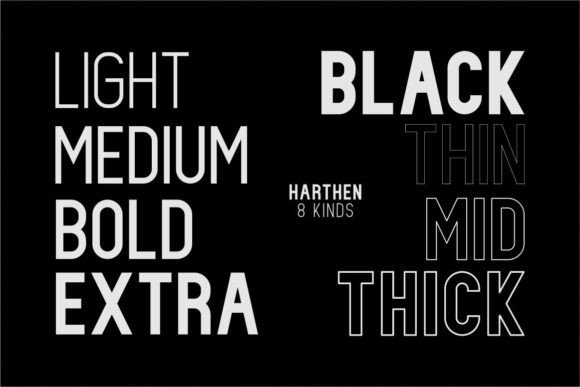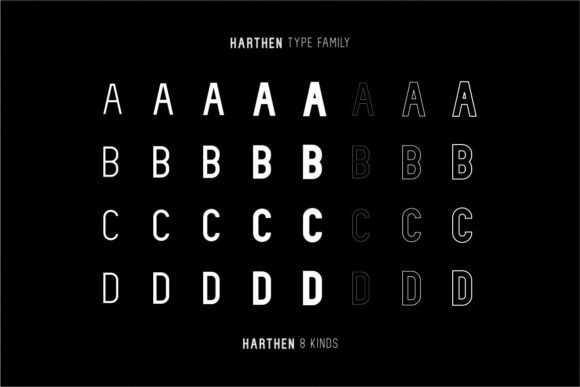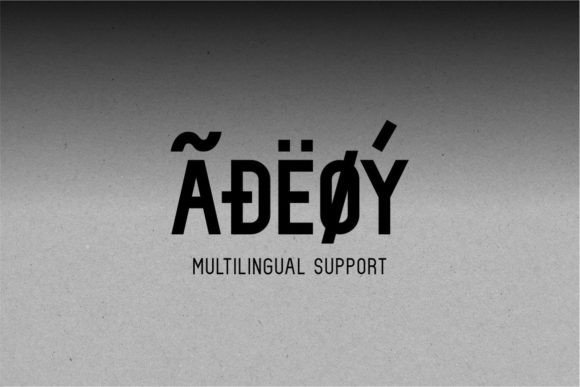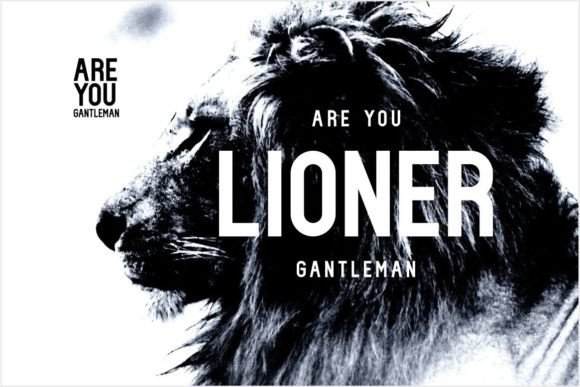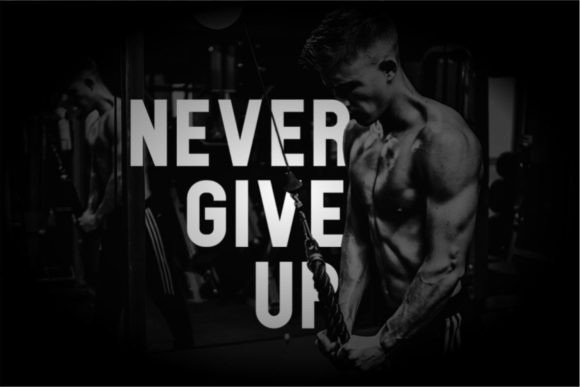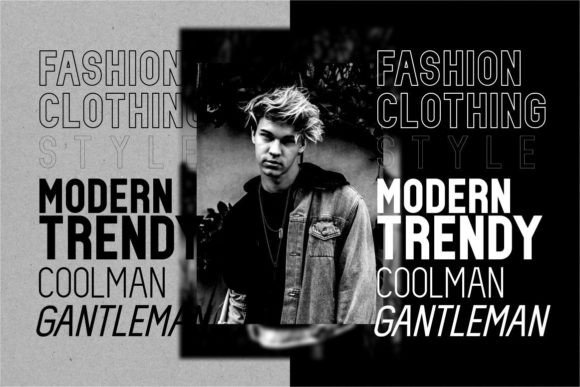
Introducing Harthen Font: Elevate Your Designs with Elegance and Sophistication
In the world of typography, fonts play a crucial role in conveying the tone and personality of a brand or design. For designers and crafters seeking a modern, elegant, and versatile font, Harthen Font is an excellent choice. This modern sans serif font family is designed to add a touch of sophistication and style to various projects, from fashion and branding to album covers and food menus.
What Makes Harthen Font Stand Out?
Harthen Font is characterized by its clean lines, simple shapes, and a modern aesthetic that exudes elegance and class. Its sans serif design ensures clarity and readability, making it perfect for use in a wide range of applications. Whether you’re creating a logo, crafting a brand identity, or designing an album cover, Harthen Font provides the perfect blend of style and functionality.
Key Features of Harthen Font
- Modern and Contemporary: Harthen Font boasts a modern design that is both stylish and contemporary, ensuring your designs look fresh and current.
- Elegant and Classy: The font’s elegant and classy appearance makes it suitable for high-end brands, fashion designs, and luxury products.
- Easy to Use: Harthen Font is designed to be user-friendly, allowing designers to easily integrate it into their projects without hassle.
- Versatile: Its versatility makes it ideal for a variety of projects, including fashion, banners, logos, food menus, brand names, branding, quotes, album covers, and more.
Applications of Harthen Font
Harthen Font’s adaptability and stylish appearance make it suitable for numerous applications:
- Fashion: Use Harthen Font to create stunning fashion logos, brand names, and marketing materials that exude elegance and sophistication.
- Banners and Posters: Add a touch of modernity and style to your banners and posters with Harthen Font, ensuring they grab attention and communicate your message effectively.
- Logos and Branding: Create memorable logos and brand identities with Harthen Font, perfect for businesses looking to establish a strong and contemporary brand image.
- Food Menus: Elevate your restaurant’s menu with Harthen Font, adding a dash of elegance and class to your culinary offerings.
- Album Covers: Design captivating album covers with Harthen Font, ideal for musicians and producers seeking a modern and stylish look.
Why Choose Harthen Font?
Choosing Harthen Font for your design projects comes with numerous benefits:
- Enhance Your Designs: With Harthen Font, you can significantly enhance the visual appeal of your designs, making them more engaging and professional.
- Save Time: Its ease of use allows you to save time on design and formatting, enabling you to focus on other creative aspects of your project.
- Stand Out: In a crowded market, Harthen Font helps your designs stand out with its unique and stylish appearance, capturing the attention of your audience.
Harthen Font is a versatile and stylish modern sans serif font family that can elevate your designs to new heights. Its elegance, class, and ease of use make it an excellent choice for designers and crafters across various industries. Whether you’re working on a fashion project, creating a brand identity, or designing an album cover, Harthen Font is the perfect tool to add sophistication and style to your work. Make the smart choice for your next project and choose Harthen Font for a contemporary, elegant, and impactful design.